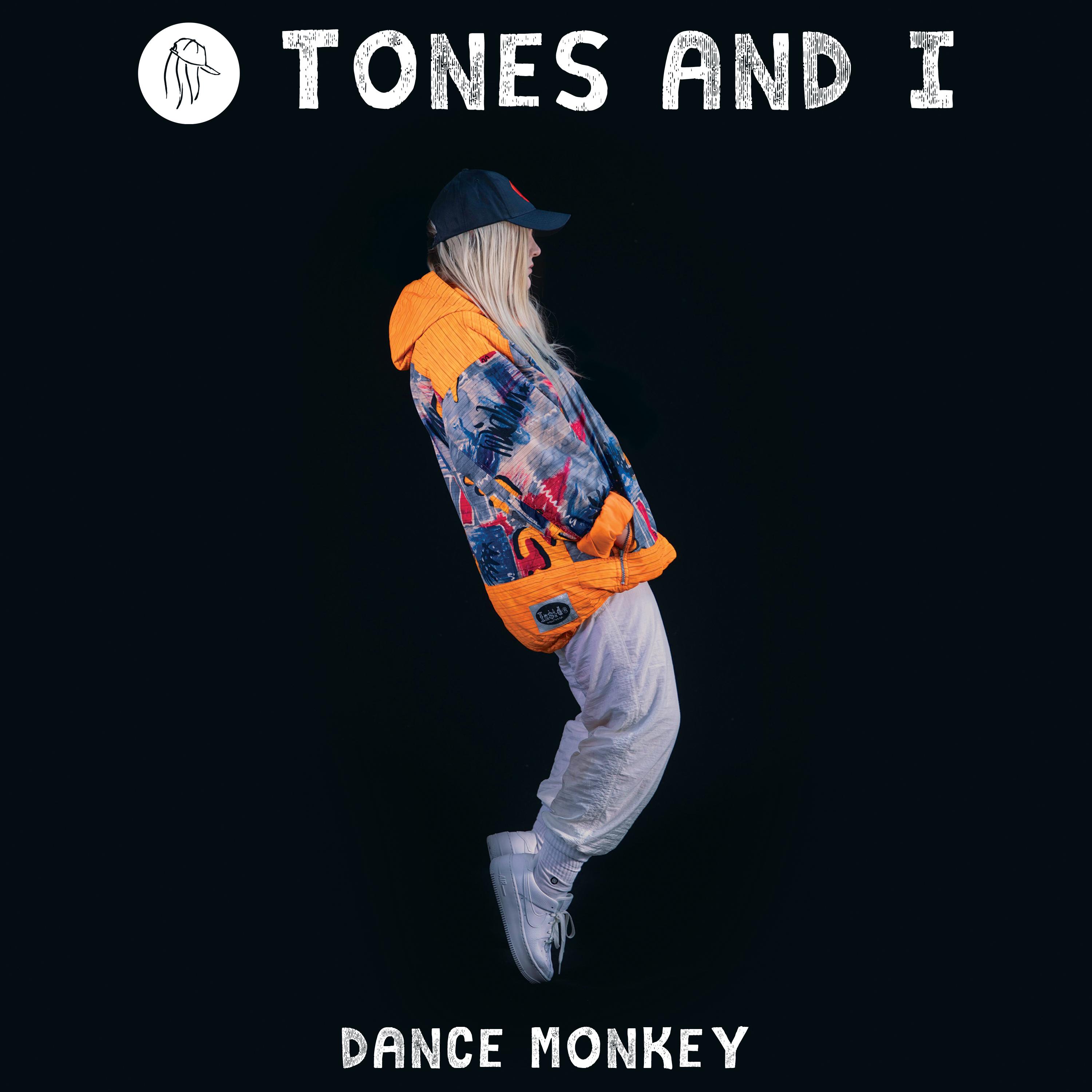
Fonts in UseDance Monkey is a pop song by Australian singer Tones and I that became a global hit in 2019, with its catchy melody and lyrics about a street performer's experiences.
The artwork for the single showcases a font named Campkid, created by RatticSassin Design with a textured appearance. The font can be downloaded for free here at FontGet.